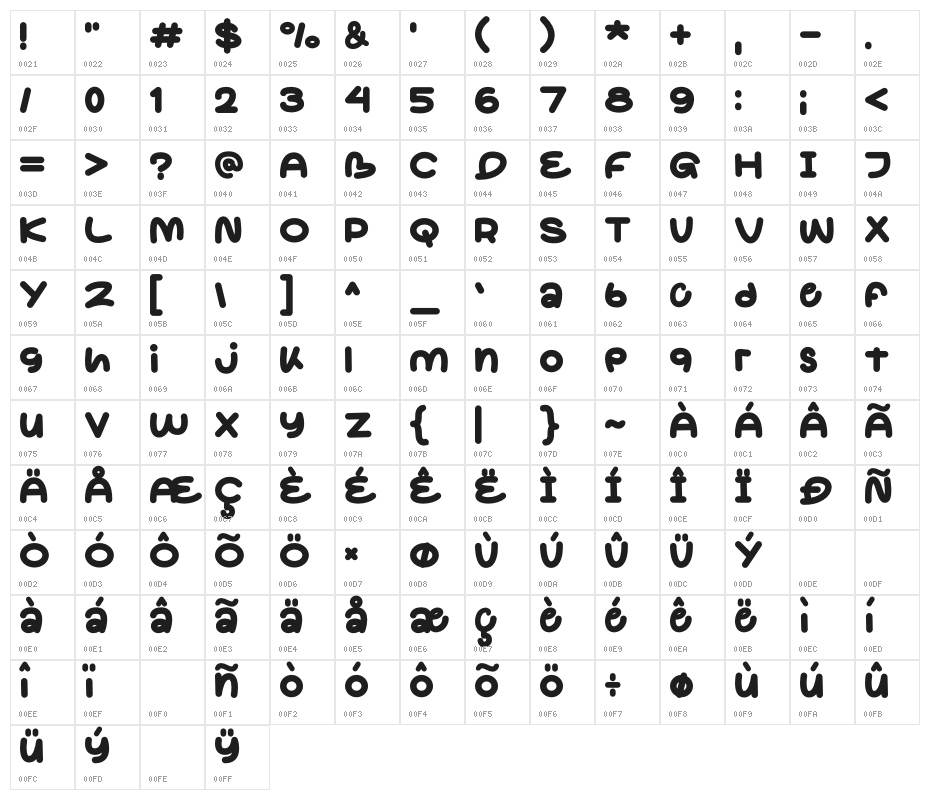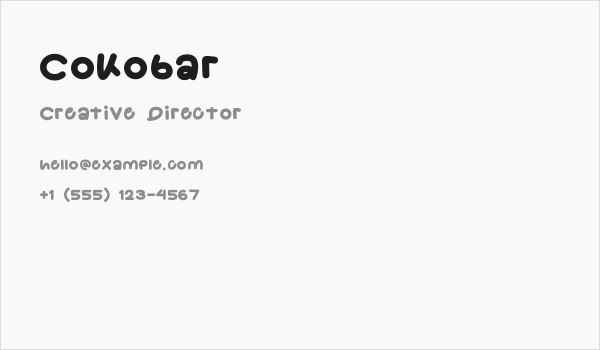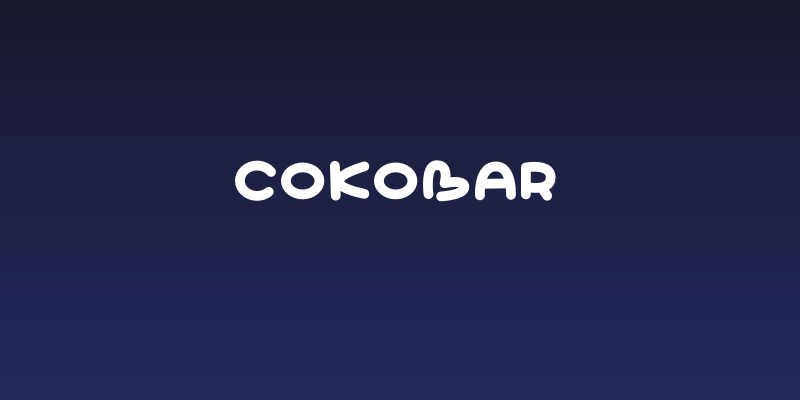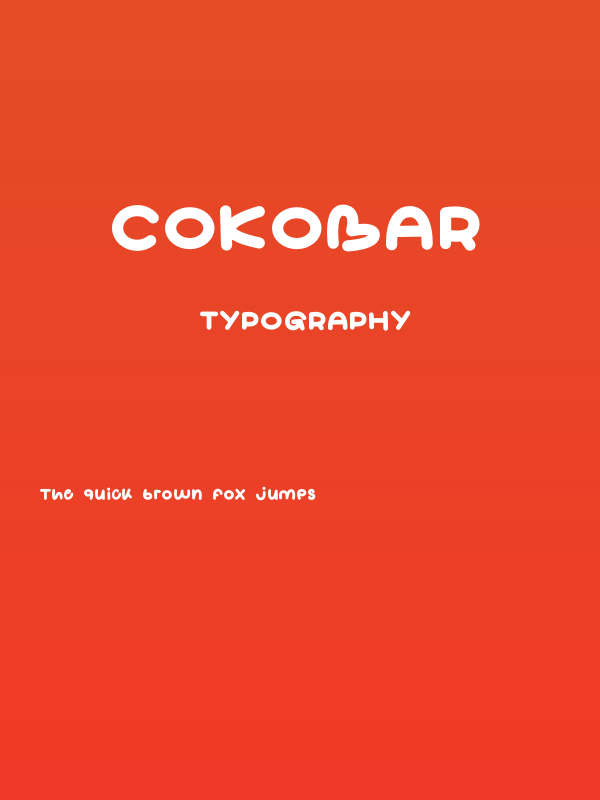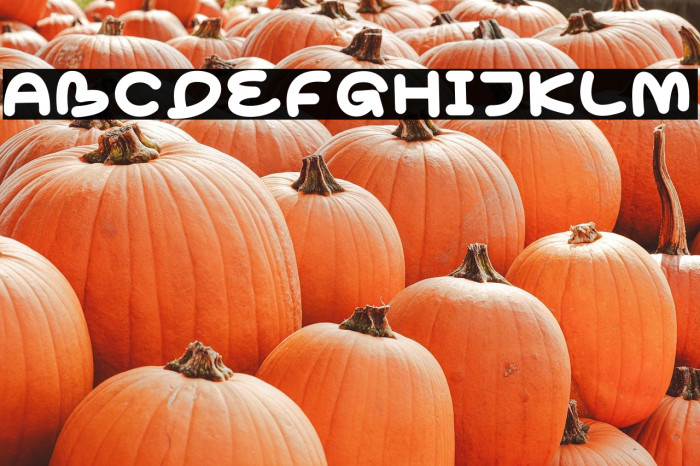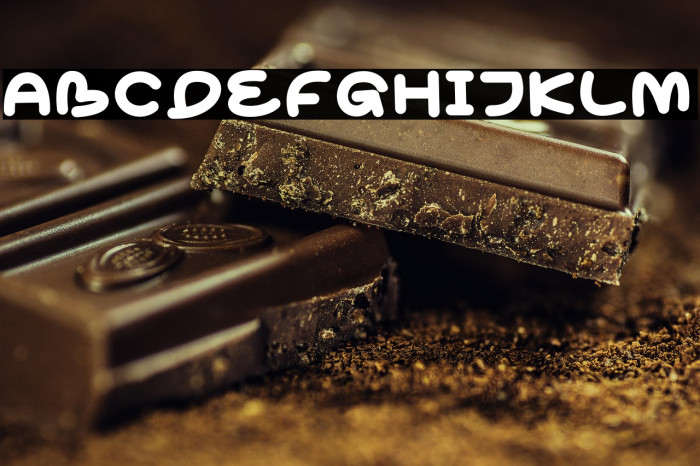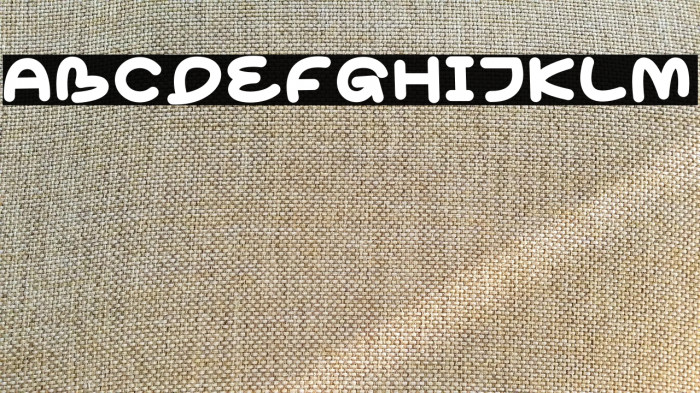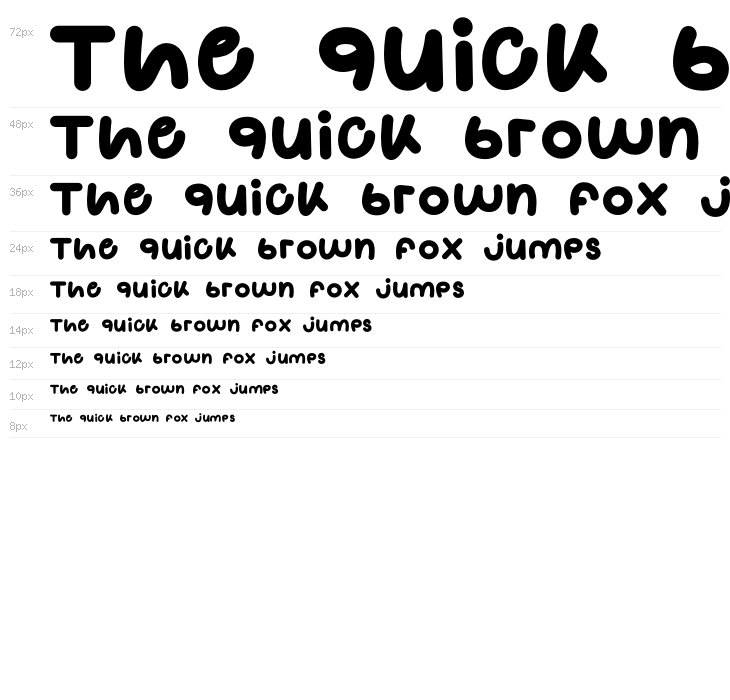
Cokobar Font
Cokobar Description
This playful and rounded font features bold, smooth curves and a friendly appearance. Each character is crafted with a consistent stroke width, giving it a cohesive and harmonious look. The letters are slightly condensed, enhancing readability while maintaining a unique style. The font's whimsical nature makes it ideal for projects that require a fun and approachable aesthetic. Its boldness ensures it stands out, making it suitable for eye-catching designs. The uniformity in stroke and the rounded edges contribute to its modern and casual vibe, perfect for creative and informal applications.
| Proposed Projects | Ideal for children's books, playful branding, casual invitations, and creative posters. |